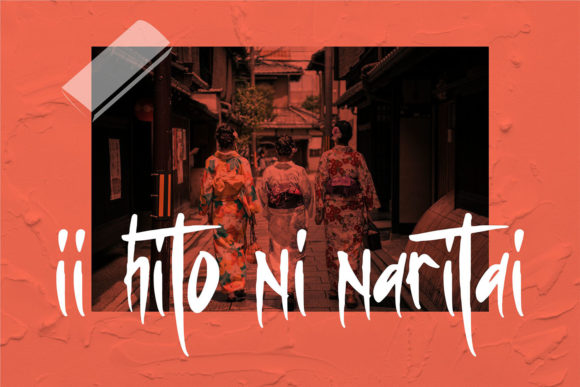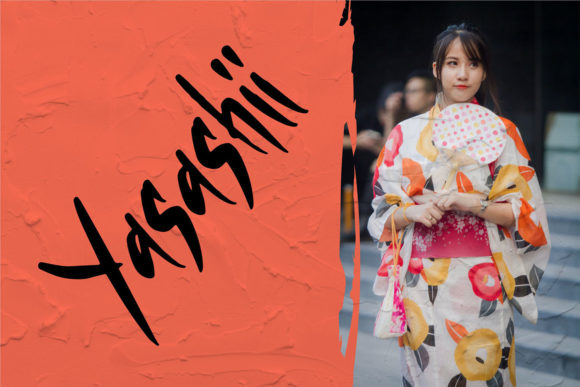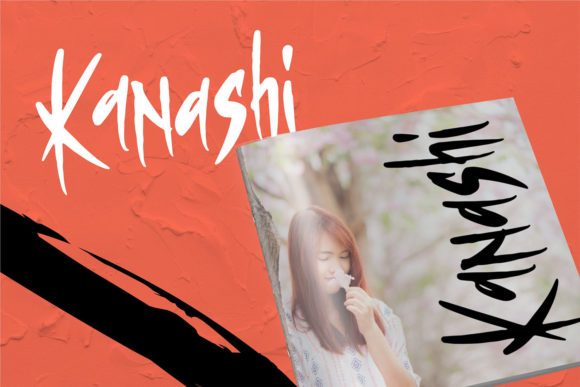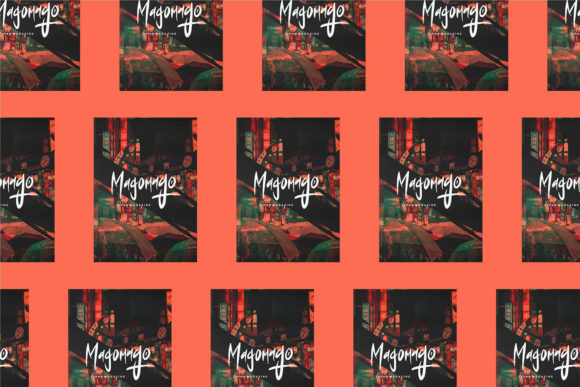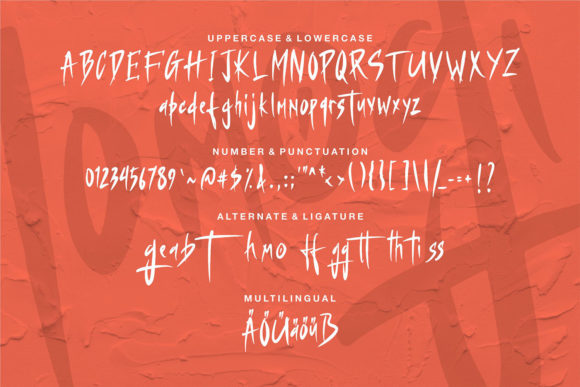
Introduction to Momogi Font
Have you ever stumbled upon a design that makes your heart skip a beat? Maybe it was a beautifully handwritten wedding invitation or a custom logo that perfectly captured a brand’s personality. For designers, these moments are what make our creative journey so rewarding. And when it comes to adding a personal touch to our designs, the right font can make all the difference.
Enter the Momogi Font, a relaxed and warm-hearted paint-brushed script font that’s perfect for adding a touch of personality to your creative projects. Whether you’re working on a wedding invitation, a thank-you card, or a logo, the Momogi Font is sure to bring a sense of warmth and elegance to your design. And the best part? This beautiful font is available for free download, making it an invaluable resource for designers looking to elevate their designs without breaking the bank.
With its high-quality design and transparent background, the Momogi Font is a game-changer for designers looking to add a unique touch to their projects. Whether you’re working on a small design project or a large-scale creative endeavor, this font is sure to be a valuable asset in your design toolkit.
Key Features of Momogi Font
- High-quality design resource suitable for creative projects, offering a unique and stylish aesthetic.
- Perfect for designers working on creative projects, such as graphic design, digital art, and typography-focused designs.
Honest Review: Momogi Font
I recently stumbled upon the Momogi Font and I must say it’s a great addition to any design resource collection. This free download offers a unique, high-quality aesthetic that can elevate any creative project.
What works well: ✨ The Momogi Font features a beautiful, handwritten style with a mix of elegant and playful elements. The transparent background makes it easy to combine with other design elements and create a cohesive look. I particularly appreciate the attention to detail in the font’s design, which sets it apart from other free fonts.
Limitations: ⚠️ While the Momogi Font is a high-quality resource, it’s not suitable for all types of projects. The font’s unique style may not be the best fit for corporate or formal designs, but it excels in creative and artistic projects.
- Unique, handwritten style
Overall, I’m impressed with the Momogi Font and would recommend it to designers looking for a high-quality, creative resource. With its versatility and unique style, it’s a great addition to any design collection.
Momogi Font: A High-Quality Design Resource
Tips for Getting the Most Out of Momogi Font
To get the most out of the Momogi Font, be sure to use it with a high-quality image or design element. You can also experiment with different font sizes and styles to create a unique look.
The Momogi Font is ideal for a variety of design projects, including logos, business cards, and marketing materials. Its high-quality design and transparent background make it a popular choice among designers and creatives.